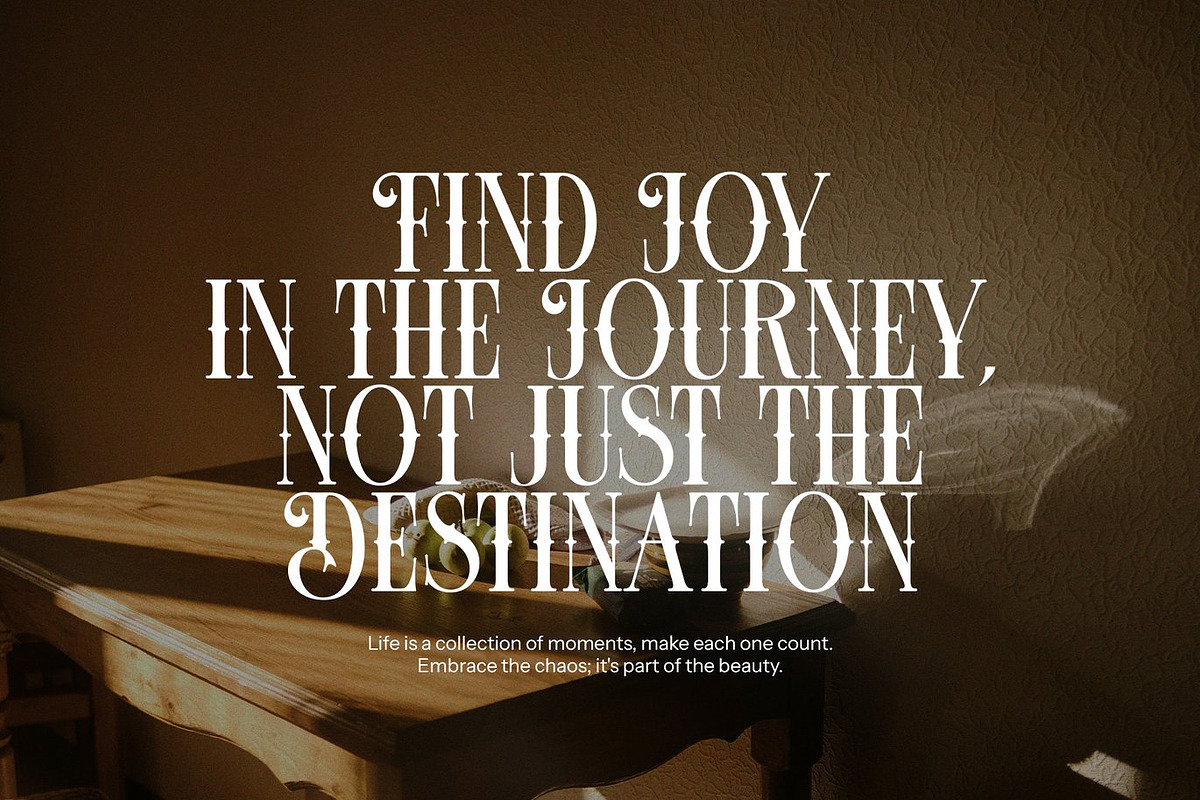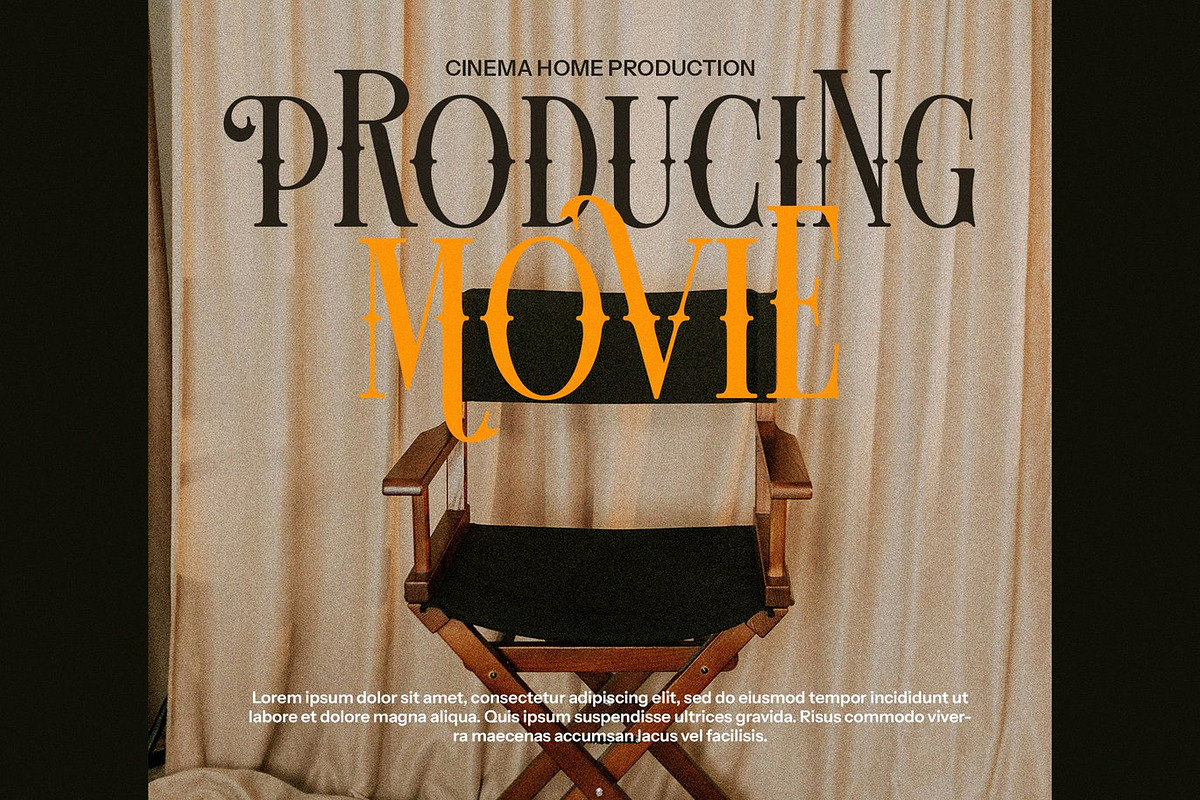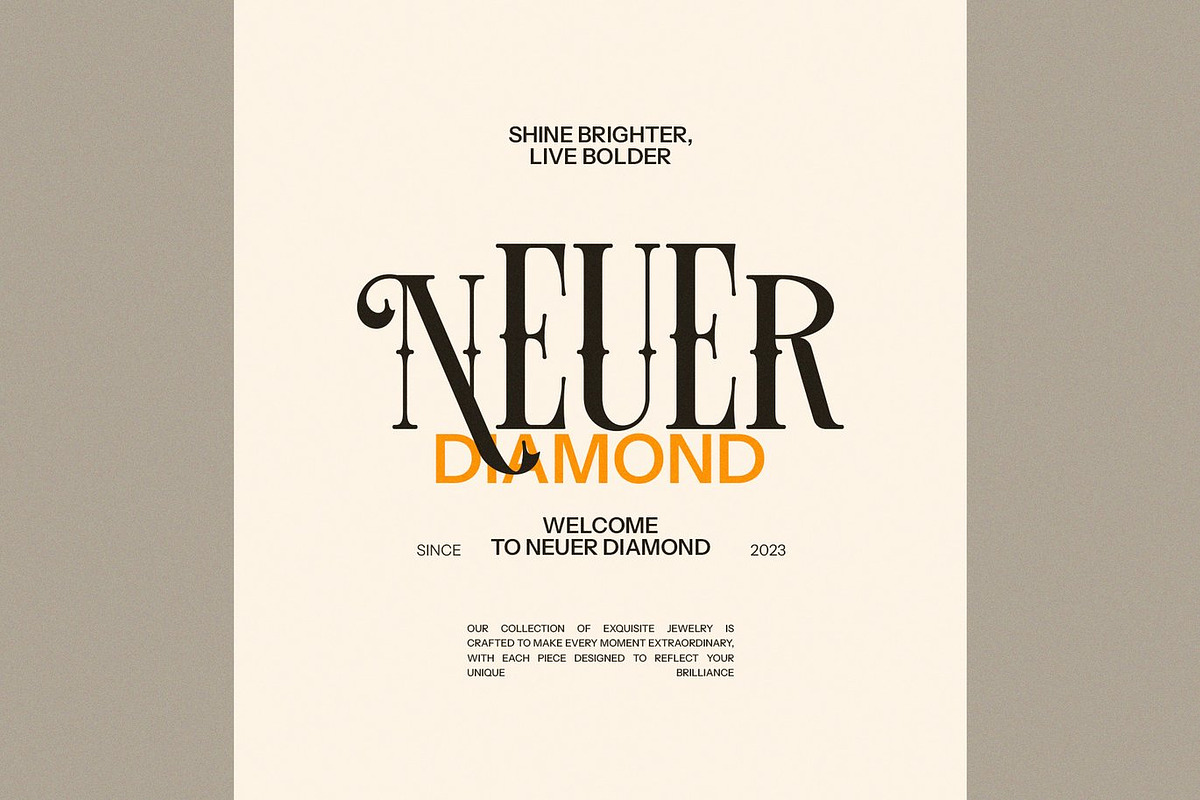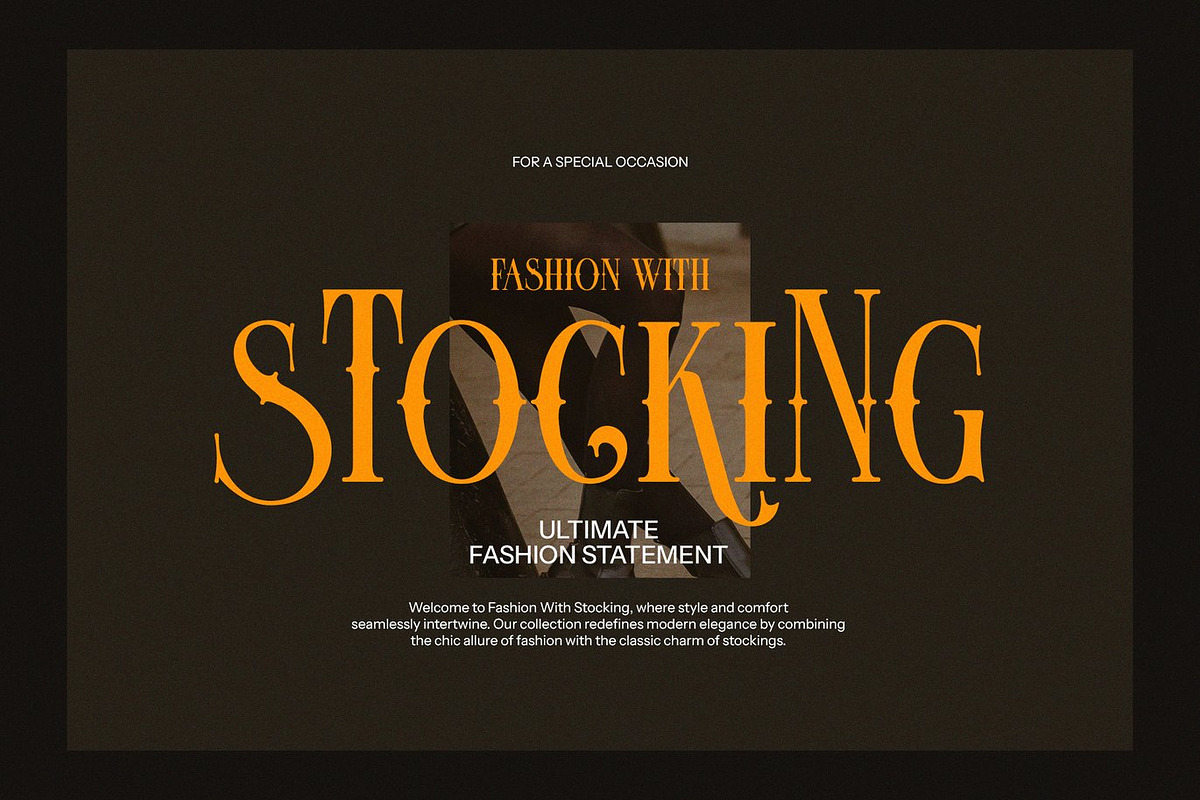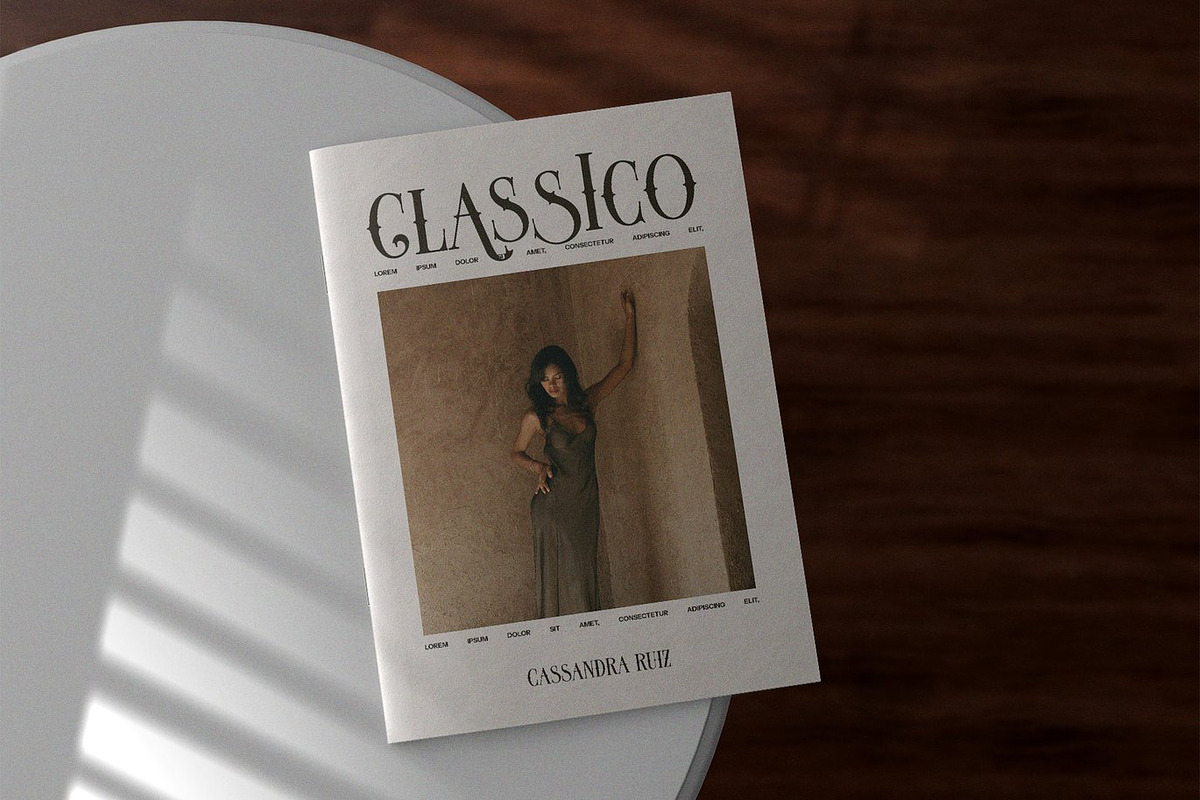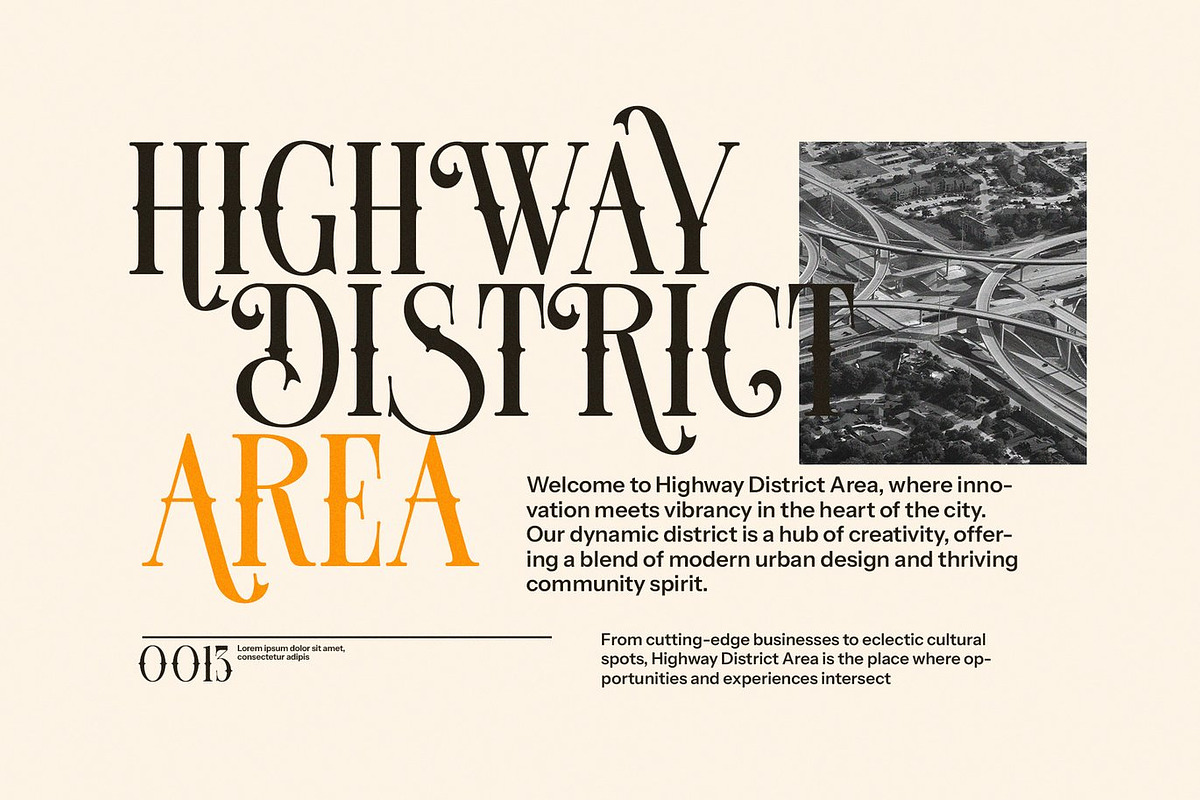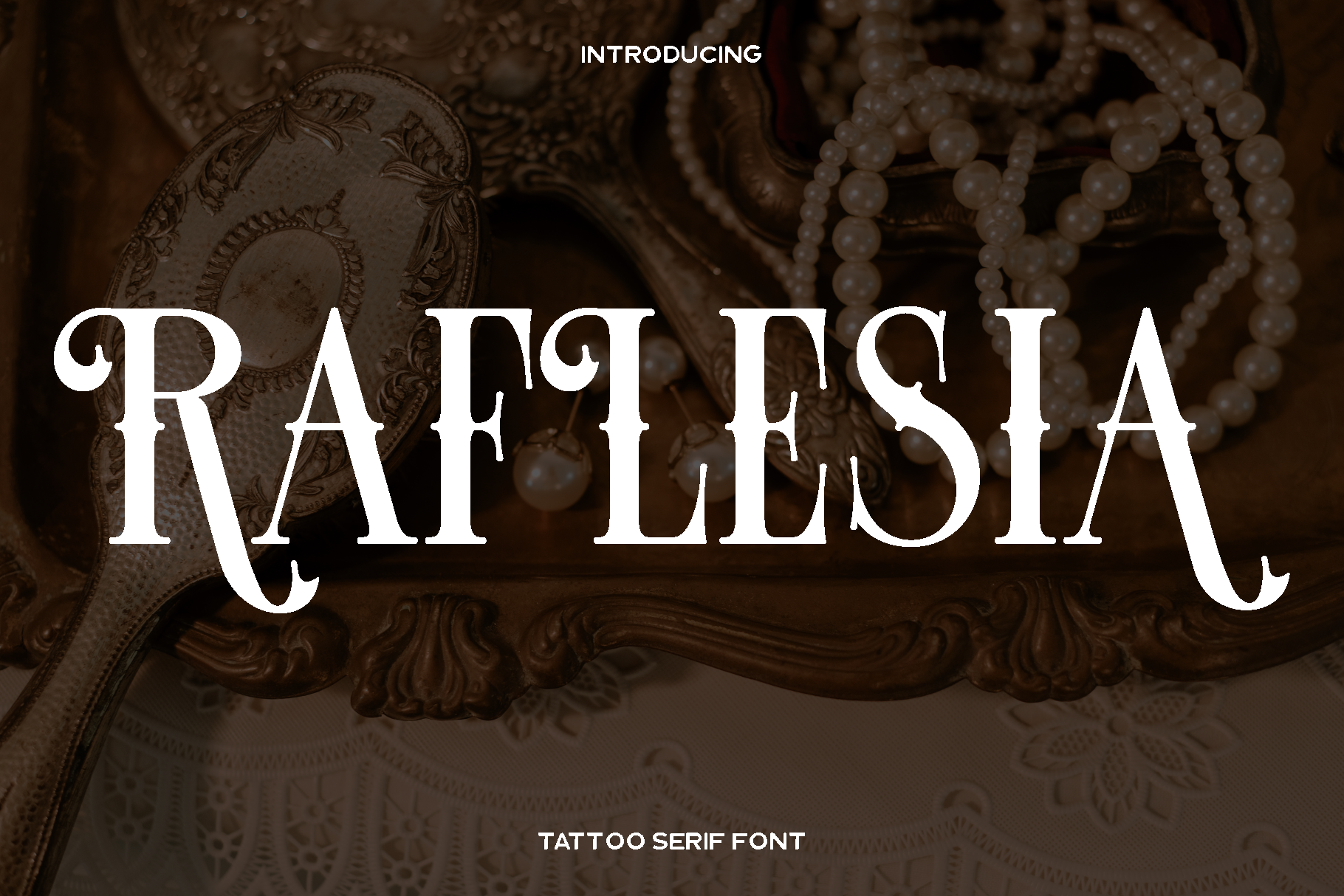
Raflesia - Vintage Serif Font
Raflesia is a bold tattoo serif font inspired by classic tattoo art and timeless vintage typography. Crafted with strong shapes and expressive details, this font carries a powerful character that reflects heritage, rebellion, and artistic confidence. Every letter is designed to feel solid and iconic, making Raflesia perfect for designs that demand strength, personality, and a traditional tattoo aesthetic.
This font truly shines in tattoo lettering, logo design, branding, apparel graphics, labels, posters, and merchandise that require a bold vintage look. Raflesia delivers a confident and masculine feel while maintaining clarity and balance, making it suitable for both large display text and detailed compositions. Its classic serif structure adds an old school charm that connects modern design with traditional tattoo culture.
Raflesia brings attitude and authenticity to your creative work. Whether you are designing for tattoo studios, motorcycle brands, bar logos, or retro inspired projects, this font helps your message stand out with a strong visual impact. Designed to work smoothly on both print and digital media, Raflesia is a reliable choice for designers who want a font with character and history.
Raflesia Tattoo Serif Font Features:
• Strong vintage tattoo style letterforms
• Character standards included
• Numbers and punctuation
• Accented characters for Western European languages